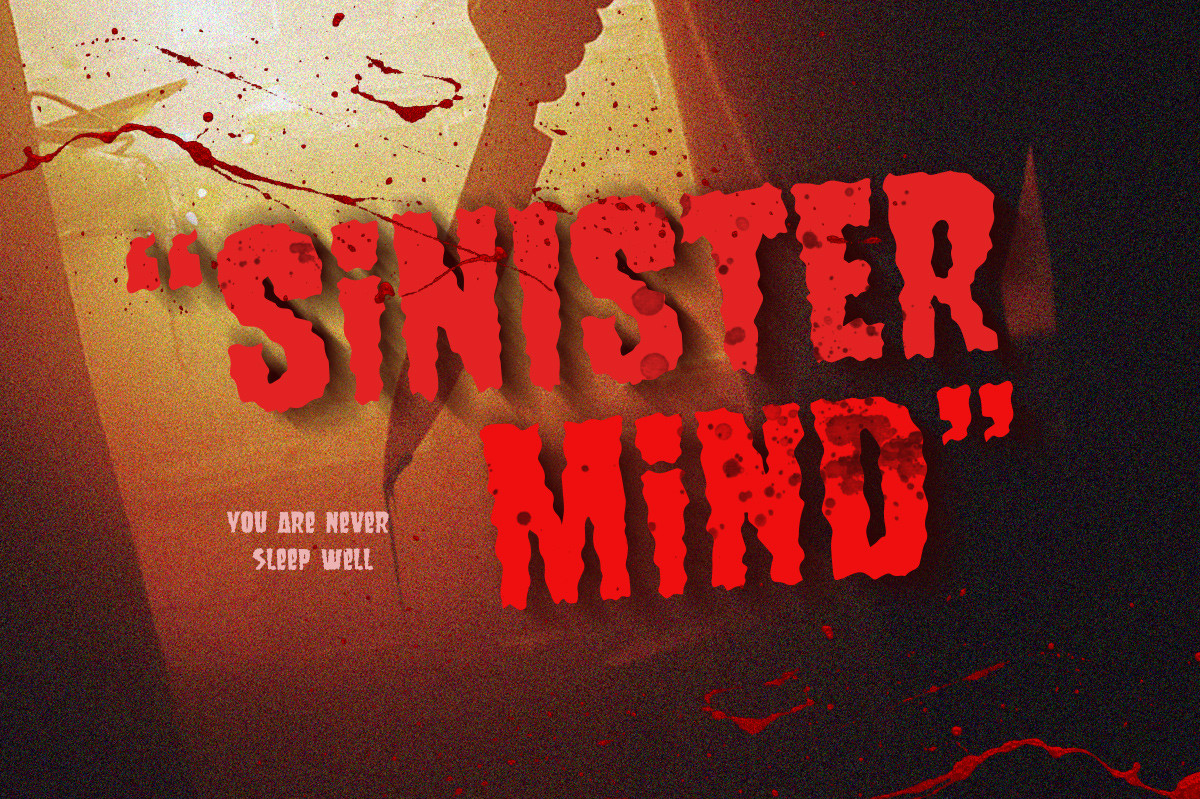
Sinister Mind Font
Sinister Mind Font is perfect for horror movie title sequences, psychological thriller book covers, dark gaming interface designs, haunted attraction marketing materials, gothic music band logos, mystery novel typography, sinister escape room branding, dark fantasy game graphics, eerie podcast cover art, and atmospheric horror film posters. This ominous typeface brings chilling atmosphere to supernatural entertainment venues, dark art gallery exhibitions, thriller streaming service branding, horror convention materials, and mysterious paranormal investigation shows.
Sinister Mind Font is exciting because it masterfully captures the psychological depths of darkness and mysterious intrigue through its hauntingly crafted letterforms. The font features characters with unsettling angles and shadowy details that evoke the twisted corridors of the human psyche and the chilling atmosphere of psychological suspense. Its distinctive construction demonstrates mental complexity with carefully distorted elements that create an immediate sense of unease and mysterious foreboding. The font's psychological intensity and dark authenticity make it perfect for brands seeking to communicate mystery, psychological depth, and atmospheric tension in their visual communications.
The Sinister Mind Font family includes various dark styles: Light, Regular, Bold, Black, Distorted, Twisted, Shadow, Outline, Condensed, Extended, Gothic, and Psychological variants. Each family member maintains the core sinister DNA while offering different levels of darkness for diverse horror-themed design applications. The comprehensive font collection ensures consistent atmospheric branding across horror entertainment campaigns, dark artistic projects, and mysterious communication materials.
Sinister Mind Font Free Download offers designers an exceptional opportunity to infuse their projects with authentic psychological atmosphere and dark visual impact. This remarkable typeface seamlessly blends horror aesthetics with contemporary functionality, making it ideal for both digital horror platforms and premium dark-themed print materials. The font's carefully crafted sinister details and psychological complexity create memorable visual experiences that resonate with audiences seeking suspense, mystery, and atmospheric entertainment.
Whether you're creating horror brand identities, designing dark entertainment marketing materials, developing mysterious website headers, or crafting atmospheric promotional campaigns, Sinister Mind Font delivers outstanding psychological appeal and horror authenticity. The font's distinctive dark personality excels in horror logos, mysterious packaging design, atmospheric applications, and entertainment projects where psychological tension and sinister atmosphere are essential.